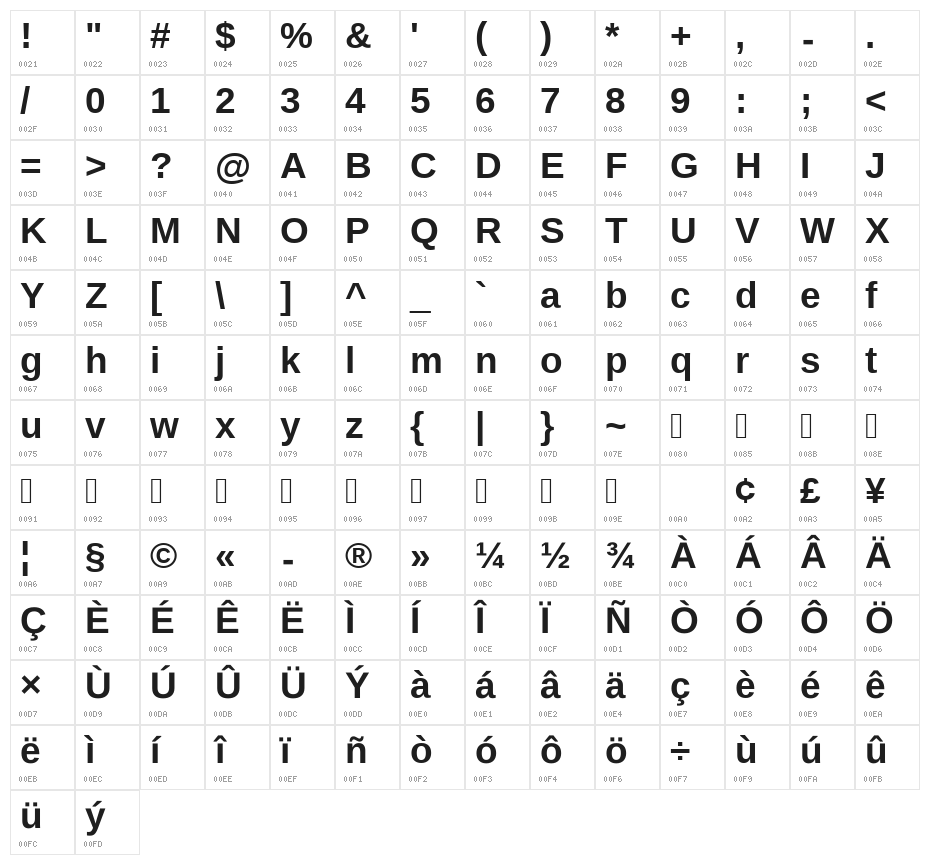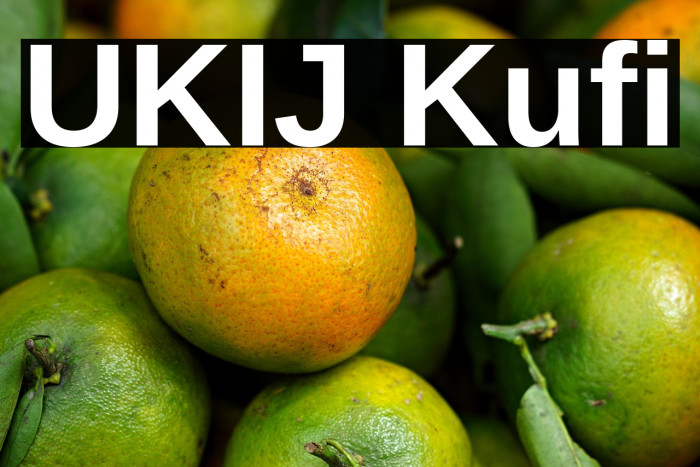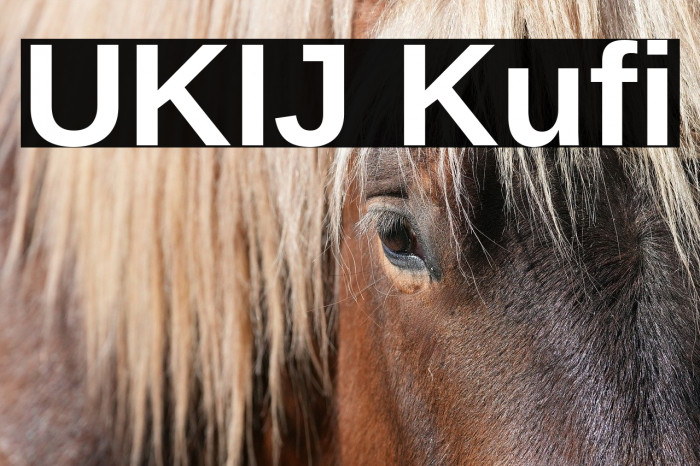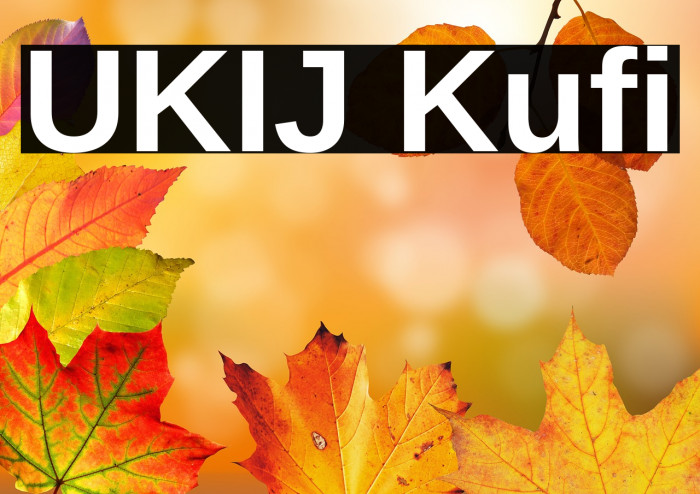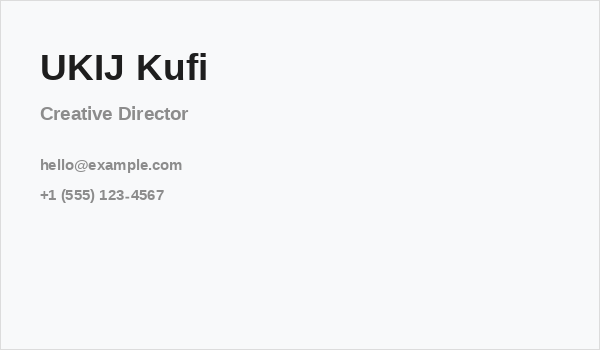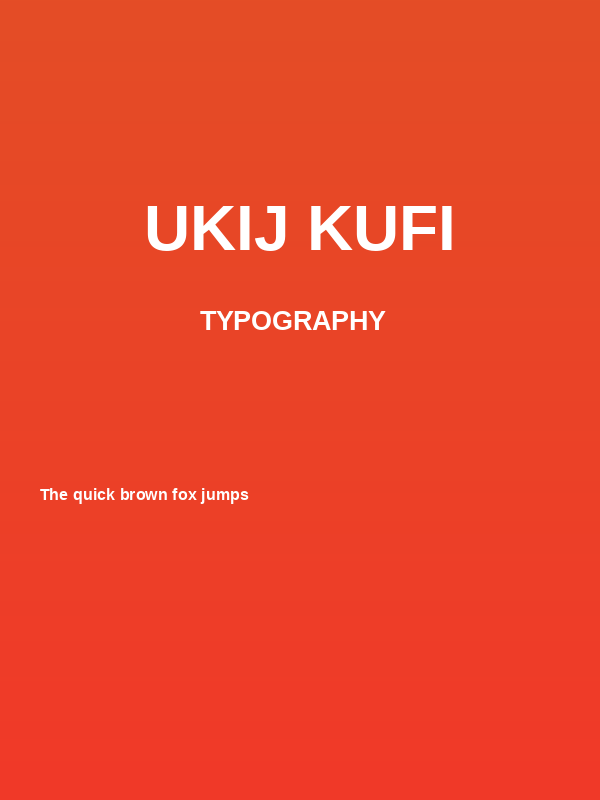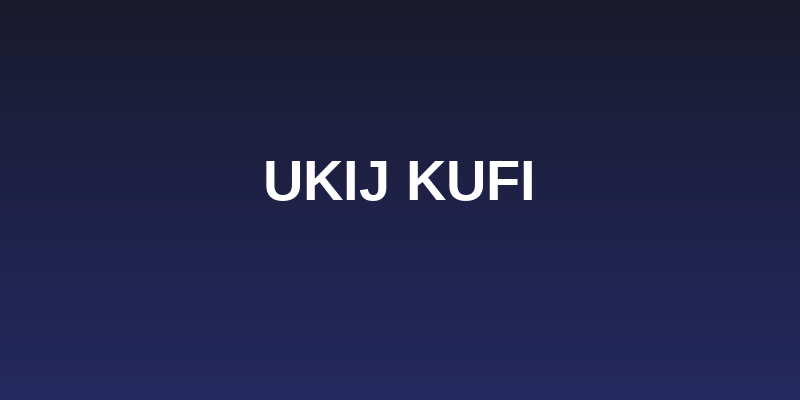
UKIJ Kufi Font
UKIJ Kufi Description
This font features a clean and modern sans-serif style with uniform stroke widths, providing a balanced and straightforward appearance. The characters are well-proportioned, offering excellent readability across both uppercase and lowercase letters. The numerals are clear and distinct, making them suitable for various applications. Special characters are included, maintaining the font's cohesive look. The overall design is versatile, making it ideal for both digital and print media. Its simplicity and clarity make it a great choice for professional and casual uses alike.
| Proposed Projects | Ideal for web design, branding, advertising, and editorial projects. |